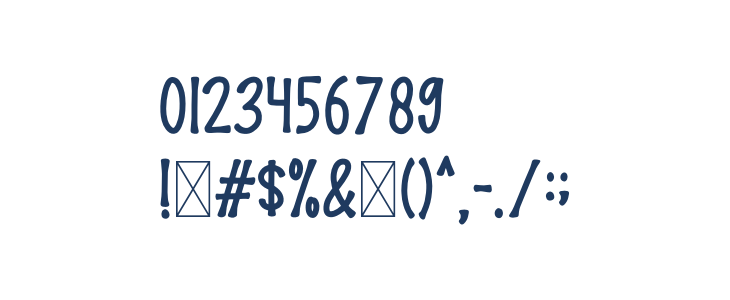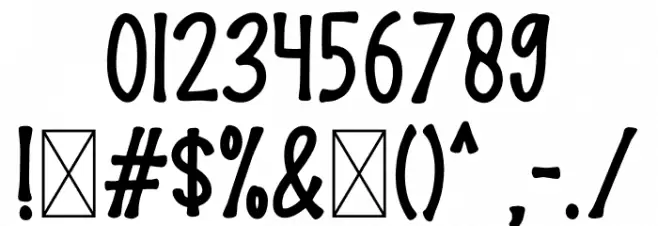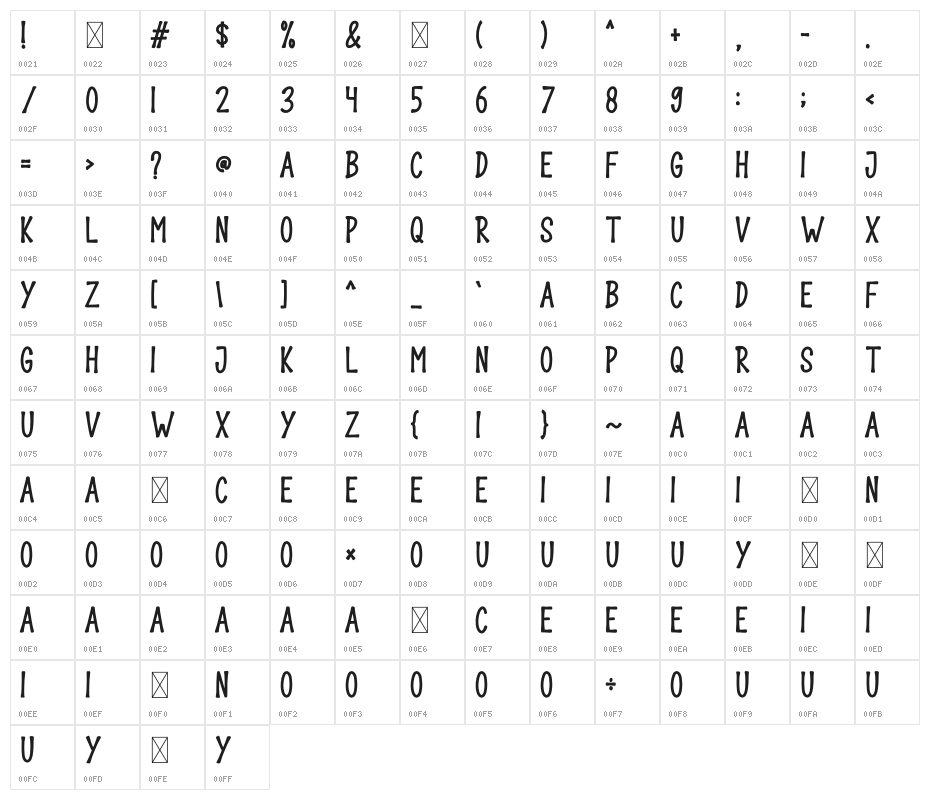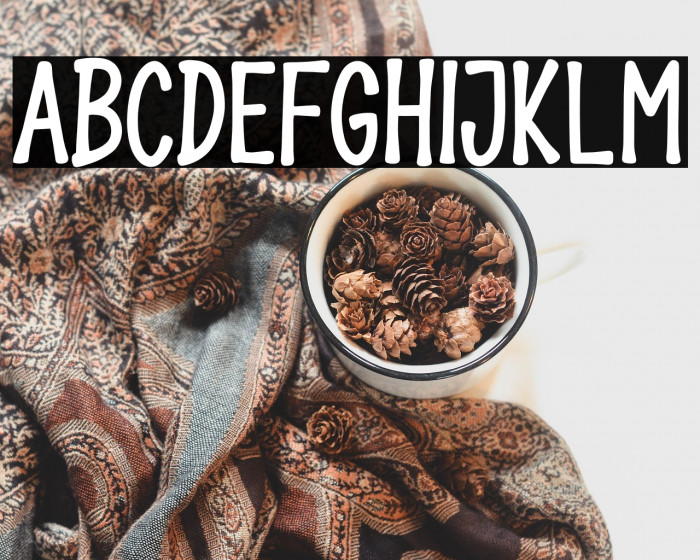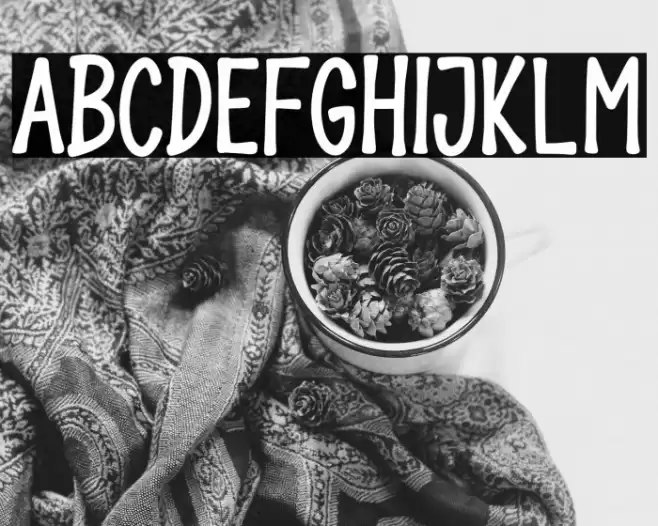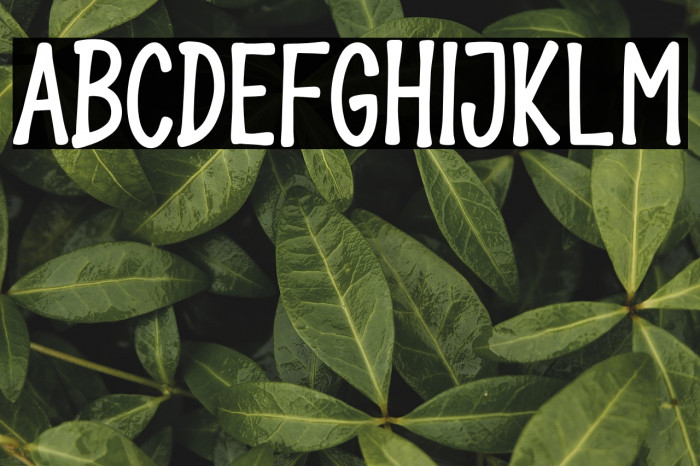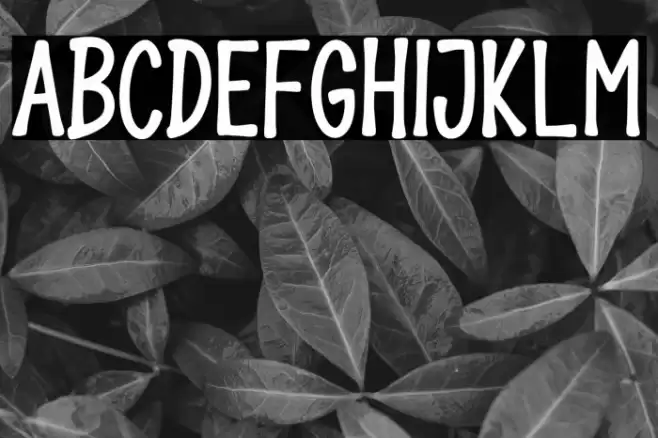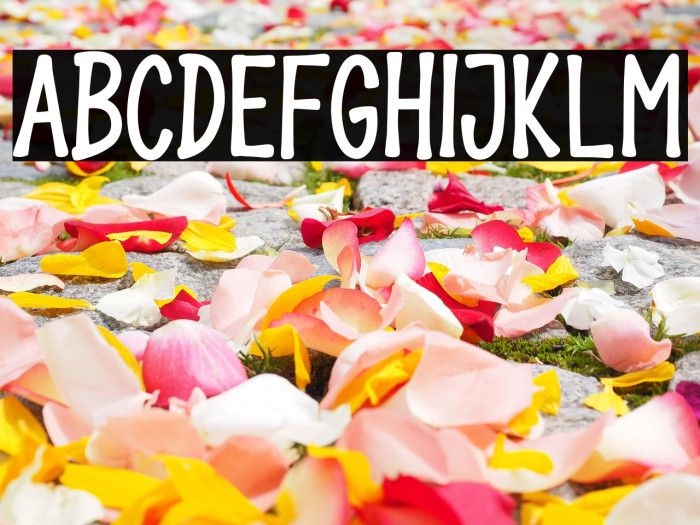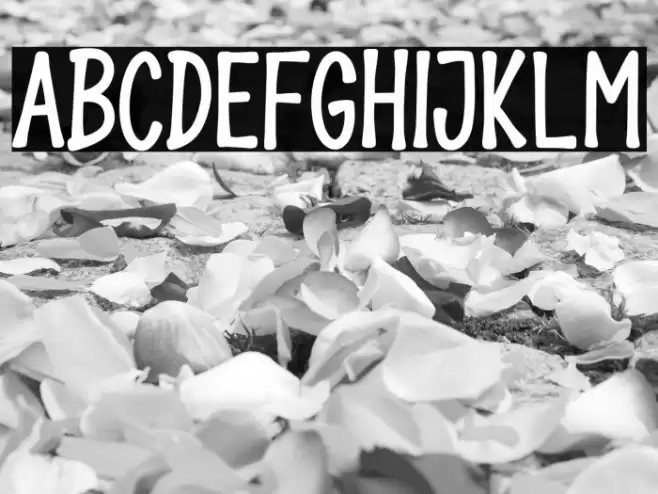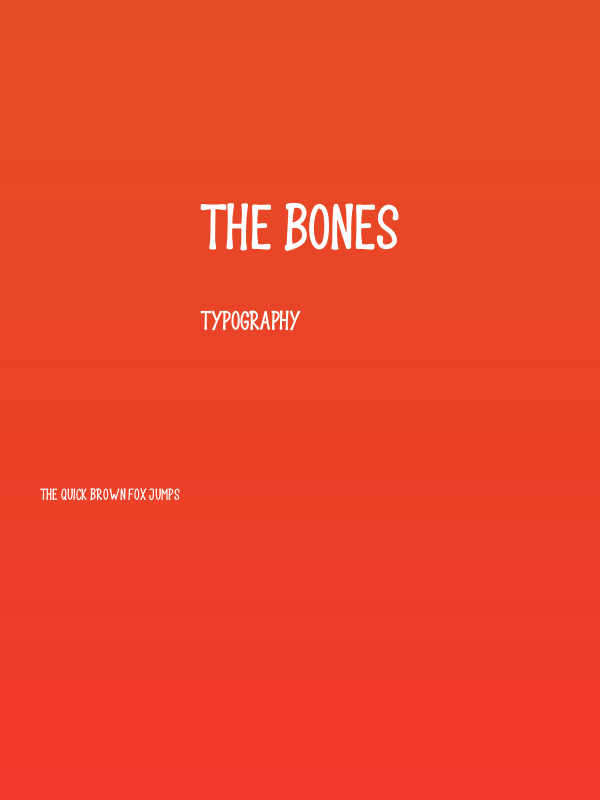
THE BONES Font
THE BONES Description
This font features a playful and bold style with a hand-drawn appearance. The characters are slightly irregular, giving it a casual and informal feel. The strokes are thick and consistent, providing a strong visual impact. The uppercase and lowercase letters maintain a uniform height, enhancing readability. The numbers and special characters follow the same design principles, ensuring a cohesive look across all elements. This font is ideal for projects that require a fun and approachable aesthetic.
| Proposed Projects | Ideal for children's books, playful branding, posters, and casual invitations. |